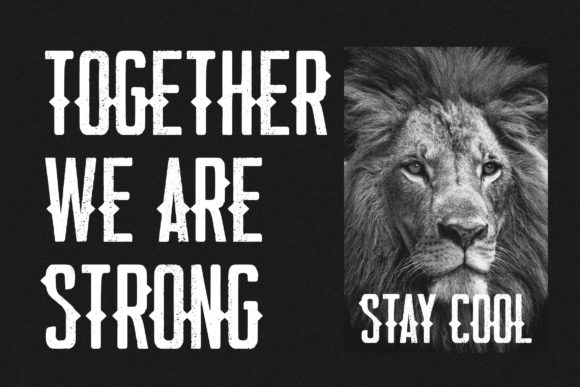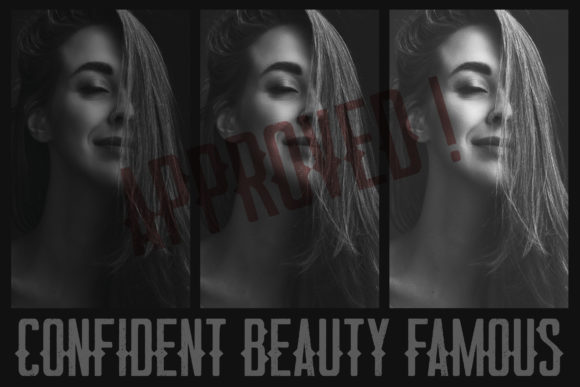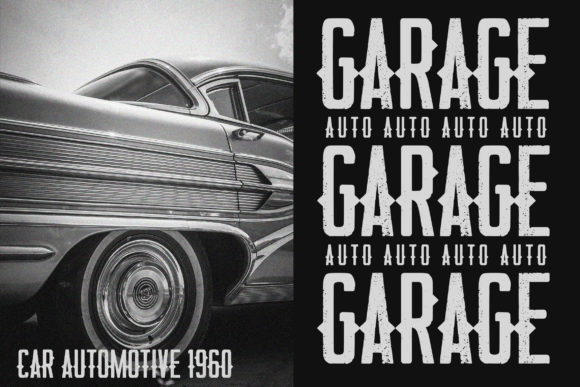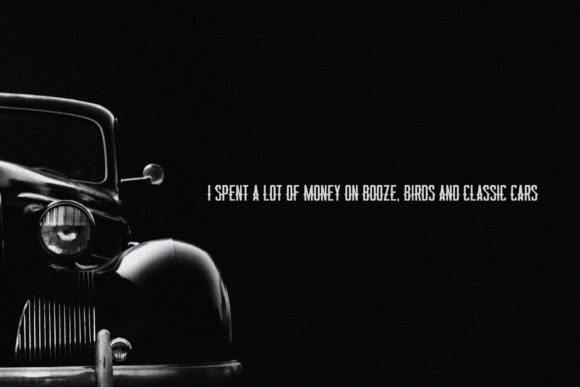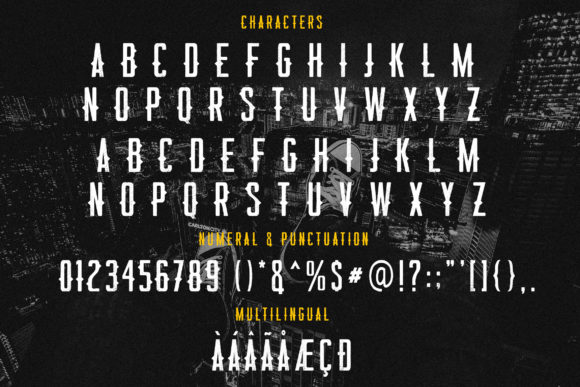
The Designer’s Delight: Getting to Know Blackspurs Font
I’ll never forget the time I was working on a branding project for a trendy new coffee shop. My client wanted a bold, eye-catching font that would make their logo stand out, but I was struggling to find the perfect one. That’s when I stumbled upon Blackspurs Font, and it instantly became the star of the show. In this article, I’ll share my experience with Blackspurs, its features, and how to make the most of it in your designs.
An Honest Review of Blackspurs Font
- ✨ Bold and Assertive: Blackspurs Font is perfect for making a statement. Its bold and assertive personality instantly grabs attention and adds a touch of sophistication to any design.
- ✅ Versatile: Whether you’re working on a logo, poster, or social media graphic, Blackspurs Font can easily be matched to a wide range of projects.
- 💡 Unique Character: The font’s distinctive character set makes it easy to add a personal touch to your designs.
While Blackspurs Font is an excellent choice for many projects, there are a few things to keep in mind:
- 🤔 Legibility at Small Sizes: As with many bold fonts, Blackspurs may not be the best choice for body text or small font sizes. It’s best used for headlines or titles.
- ⚠️ Limited OpenType Features: While Blackspurs Font has some great features, it may not have the same level of OpenType support as some other fonts.
The Story Behind Blackspurs Font
Blackspurs Font was designed with the goal of creating a bold and assertive display font that would make a statement. Inspired by the world of fashion and luxury, the font’s designer aimed to create a typeface that would exude confidence and sophistication. With its unique character set and bold personality, Blackspurs Font is sure to make your designs stand out.
| Font Name | Blackspurs Font |
Q: What is Blackspurs Font best used for?
A: Blackspurs Font is perfect for making a statement in logos, posters, social media graphics, and any other design project that requires a bold and assertive font.
Q: Can I use Blackspurs Font for body text?
A: While Blackspurs Font is an excellent choice for headlines and titles, it may not be the best choice for body text due to its bold personality and potential legibility issues at small sizes.
Q: Does Blackspurs Font have OpenType features?
A: Yes, Blackspurs Font has some great OpenType features, including glyphs and stylistic alternates. However, it may not have the same level of OpenType support as some other fonts.